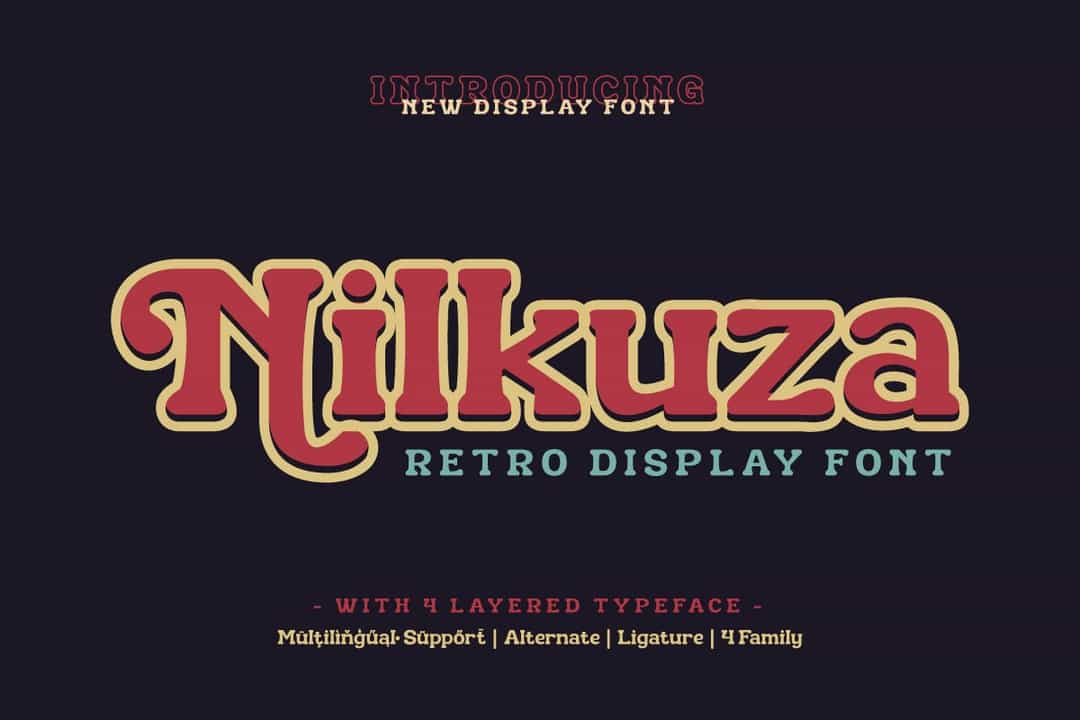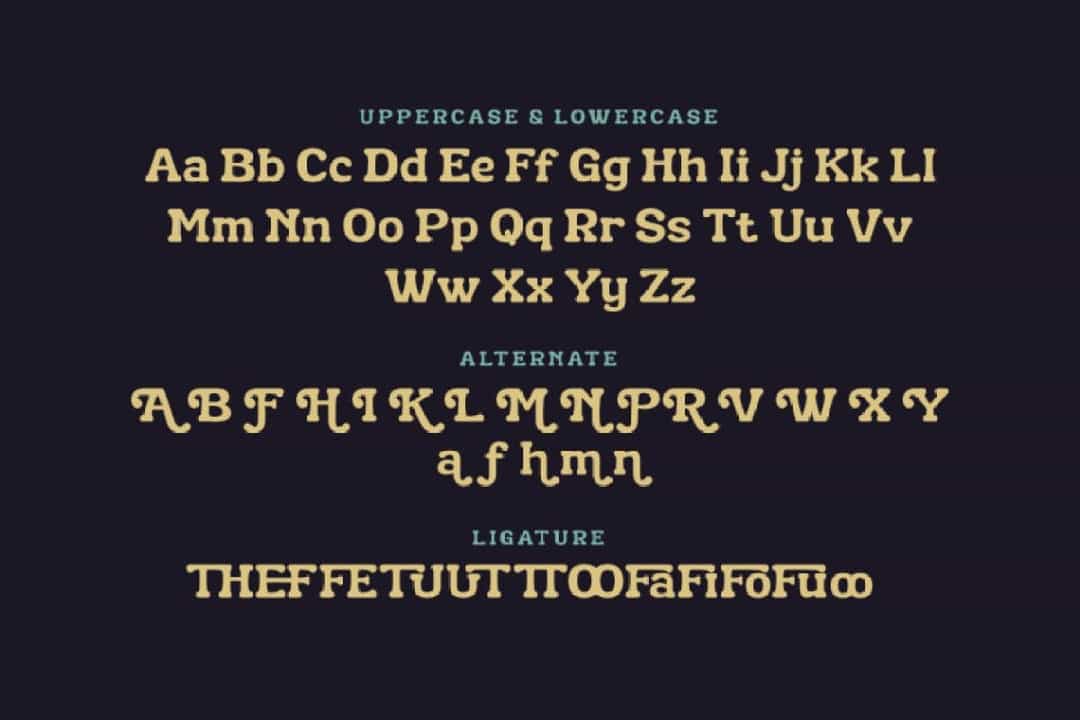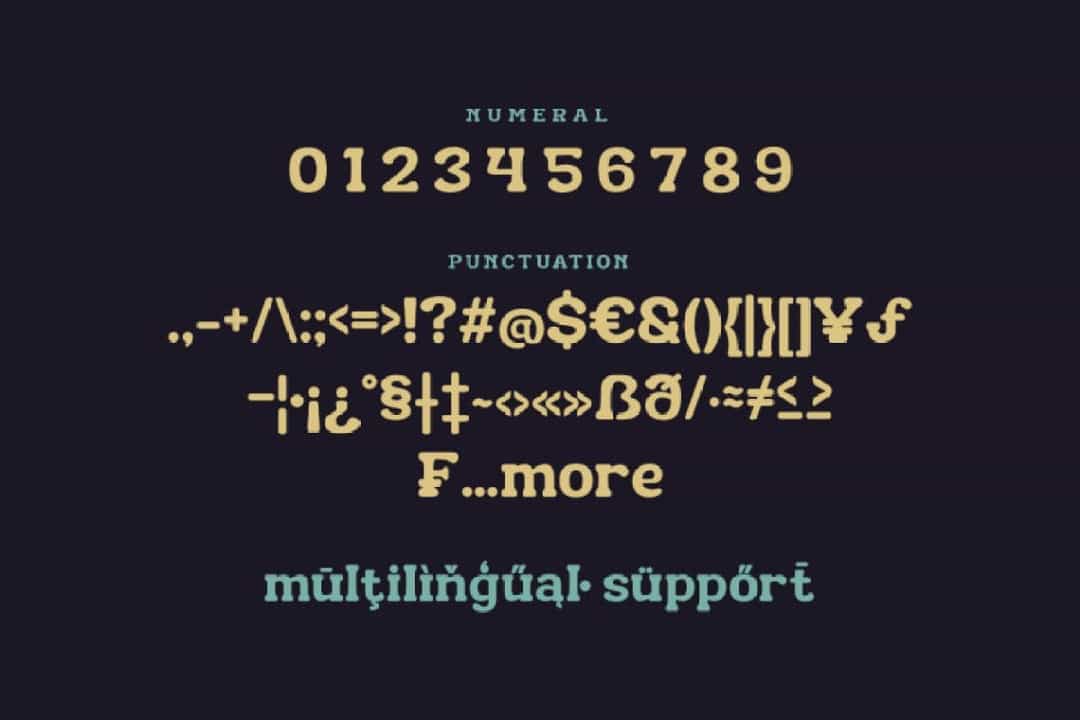
Nilkuza font is an adorable retro display style font that adds charm and nostalgia to all your projects! Perfect for adding vintage, rustic and vintage style elements in various visuals, Nilkuza goes beyond simply being a font you can use.